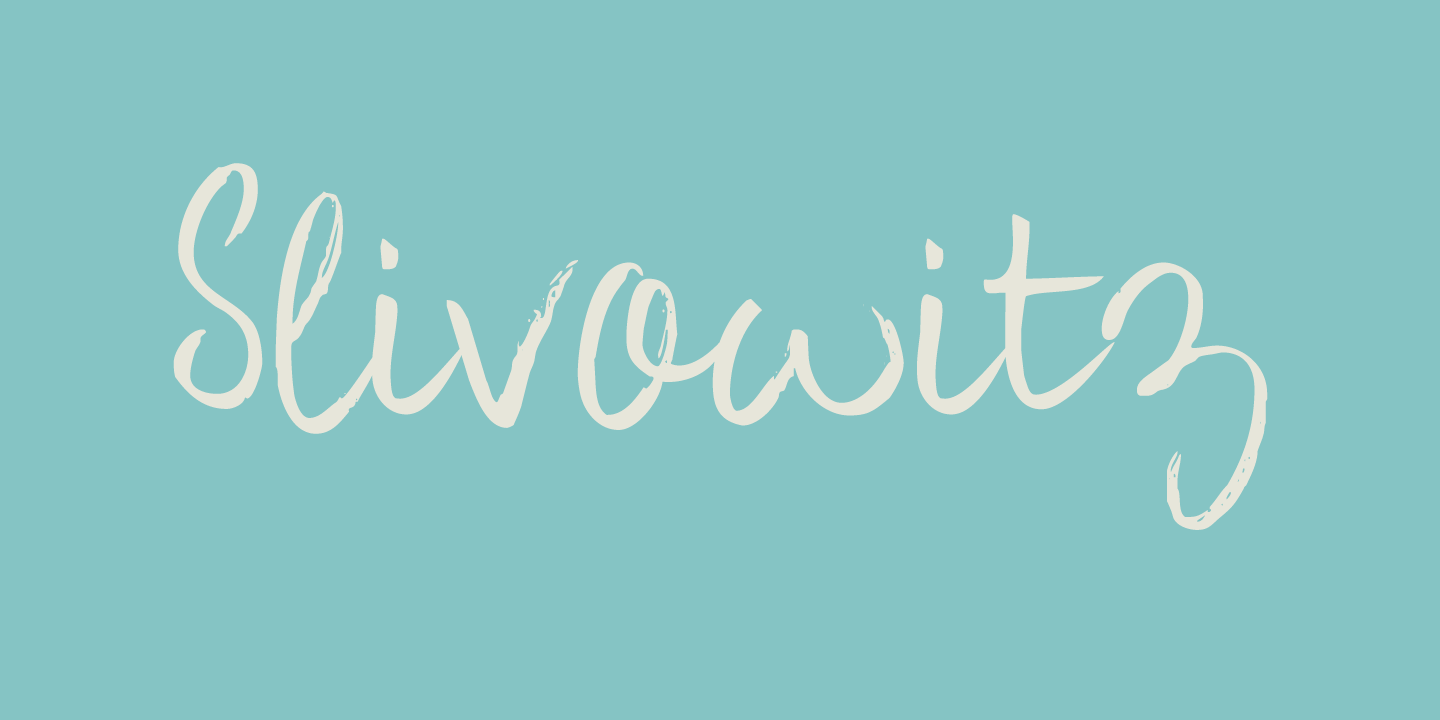
Slivowitz Font is perfect for luxury branding projects, premium product packaging, high-end restaurant menus, wine labels, fashion magazines, jewelry advertising, cosmetics branding, hotel signage, wedding invitations, corporate identity design, and any project that requires sophisticated elegance with European refinement.
What makes Slivowitz Font exciting is its exceptional blend of classical European typography traditions with contemporary design sensibilities. This elegant typeface features refined letterforms with subtle decorative elements that convey prestige, sophistication, and cultural heritage. The font's distinctive character adds an air of exclusivity and premium quality to any design application, making it ideal for luxury brands seeking authentic European sophistication.
Slivowitz Font comes in multiple font families including Regular, Bold, Light, Italic, Condensed, and Ornamental variations, offering designers comprehensive typographic flexibility to create elegant hierarchies and achieve the perfect balance between readability and decorative appeal.
Whether you're developing luxury brand identity, premium packaging design, or high-end editorial layouts, Slivowitz Font Free Download provides the ideal solution for projects demanding refined elegance and cultural authenticity. This versatile typeface excels in both display and text applications, ensuring consistent premium quality across all design elements. The sophisticated details and European-inspired character of Slivowitz Font make it an indispensable tool for designers who prioritize luxury aesthetics, cultural heritage, and timeless elegance in their typographic selections.